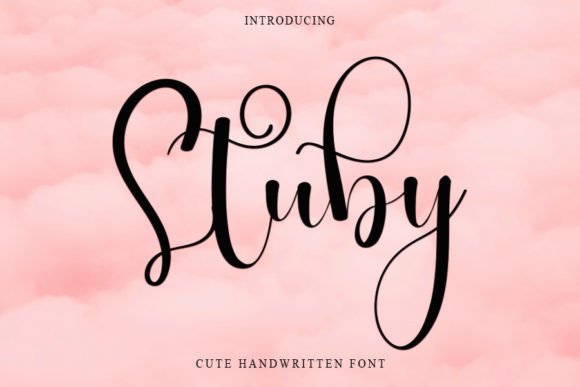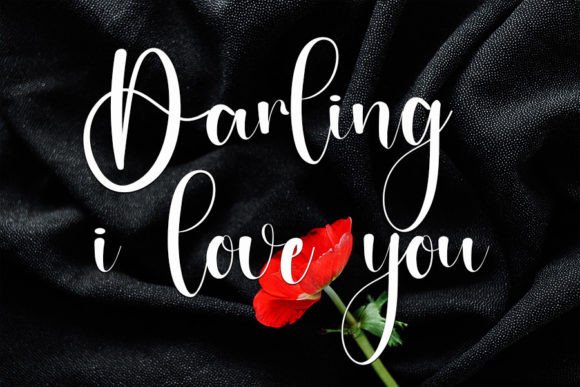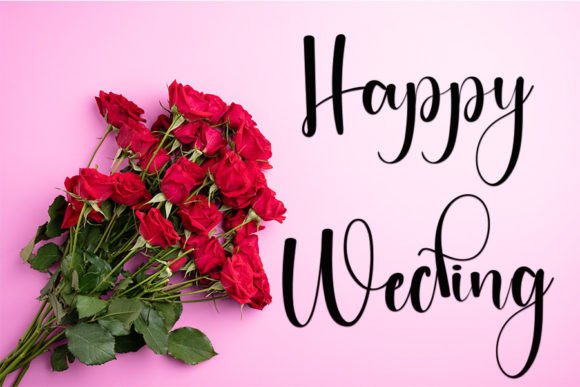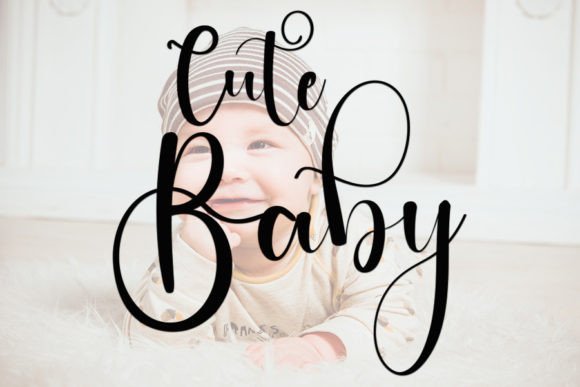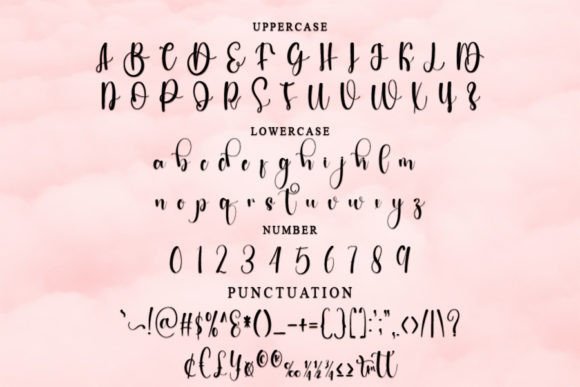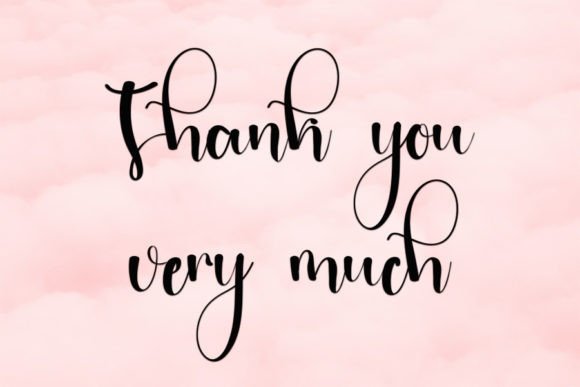
Stuby Font
About Stuby Font
Introducing Stuby, a tidy and beautiful handwritten font characterized by an elegant touch, tailor-made for your favorite projects. Immerse yourself in its incredibly distinct and timeless style, and harness its versatility to craft spectacular designs that captivate your audience.
Stuby’s neat and beautiful handwritten style brings a refined aesthetic to your work, making it an excellent choice for a variety of creative endeavors. The font’s elegance adds a touch of sophistication that complements different design contexts.
Whether you’re working on branding materials, product packaging, social media graphics, invitations, or any other creative project, Stuby shines as a font that effortlessly enhances the visual appeal. Its timeless style ensures that your designs remain relevant and captivating over time.
Stuby’s versatility makes it suitable for various design applications, allowing you to fall in love with its distinct charm over and over again. From digital platforms to printed materials, Stuby adapts seamlessly, becoming an integral part of your creative toolkit.
Embrace the beauty of Stuby in your projects, and let its neat and elegant touch elevate your designs to new heights. Whether you’re aiming for a classic or contemporary look, Stuby’s timeless style adds a touch of magic to every creation. Fall in love with the endless possibilities that Stuby brings to your design journey.